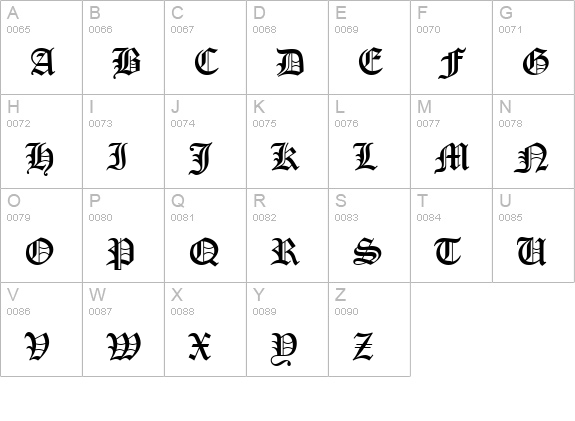
OldEnglishD Font Details
OldEnglishD font is a classic and elegant typeface that exudes a sense of tradition and sophistication. With its intricate detailing and historical charm, this font is perfect for adding a touch of old-world elegance to your projects. The ornate swirls and sharp angles of OldEnglishD font bring to mind medieval manuscripts and ancient inscriptions, making it a versatile choice for a wide range of design applications. The best part is that OldEnglishD font is completely free to download at FontsMarket.com, making it accessible to anyone looking to elevate their designs with a touch of vintage flair. Whether you're working on invitations, signage, branding, or any other creative project, OldEnglishD font is sure to make a lasting impression with its timeless appeal. Download it today and let your creativity shine with this exquisite and freely available typeface.